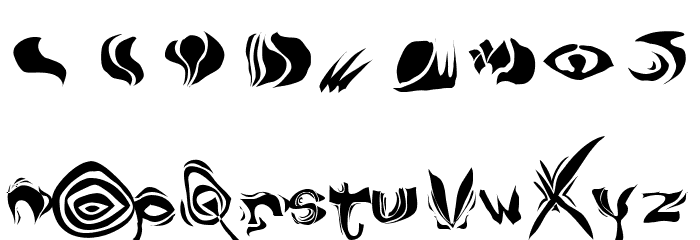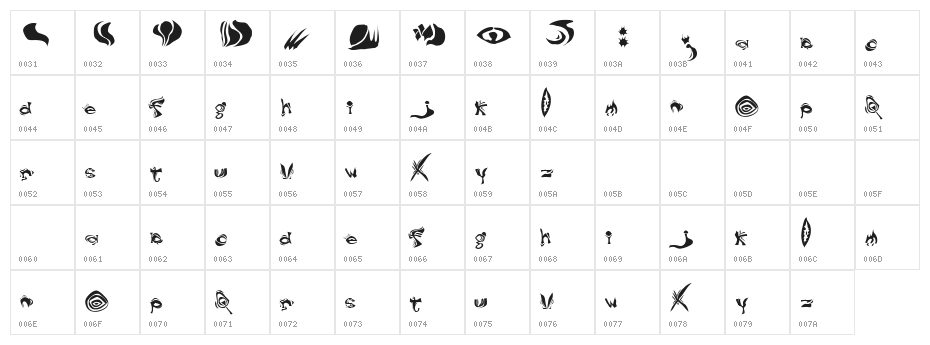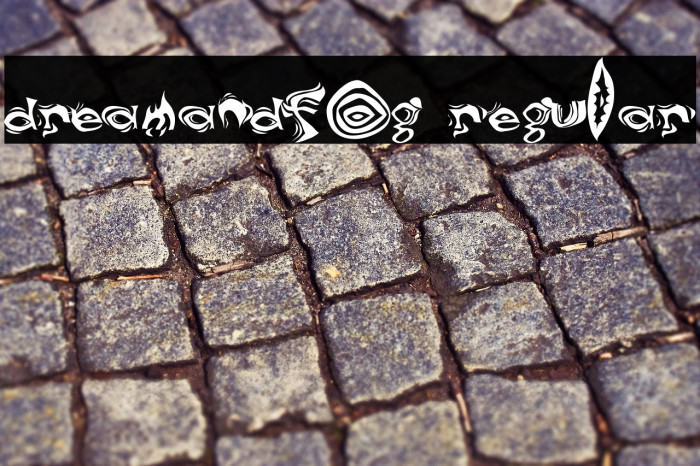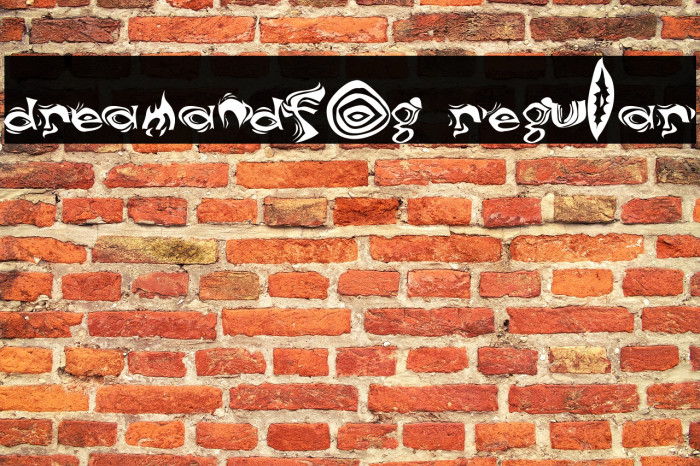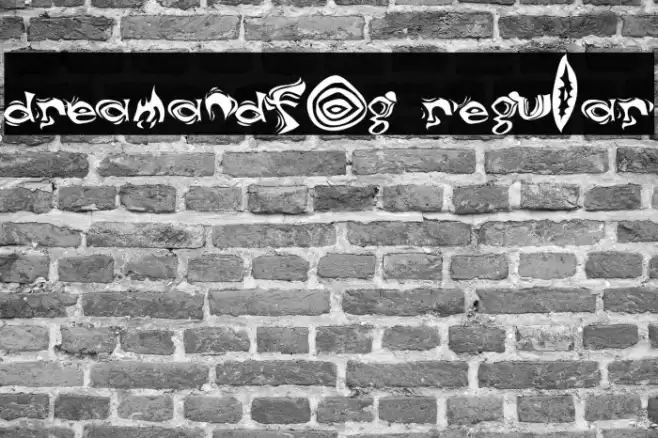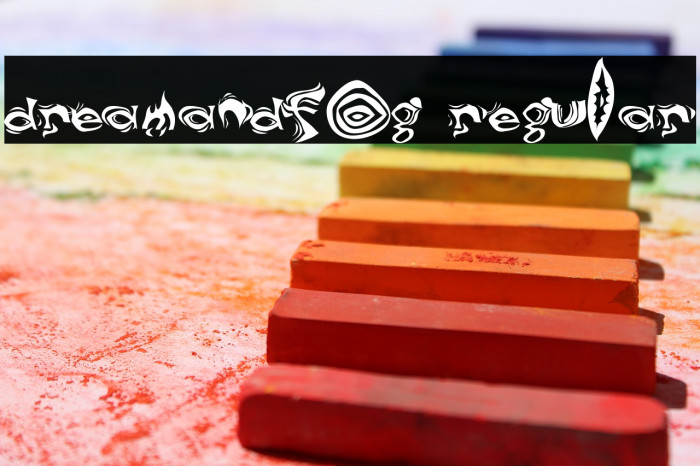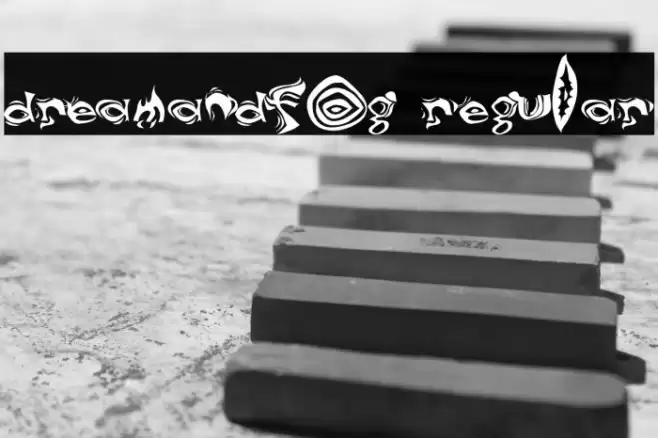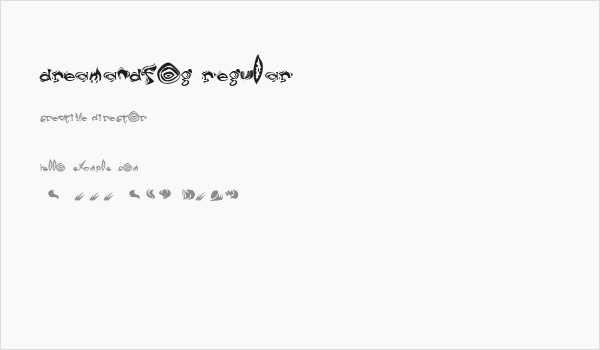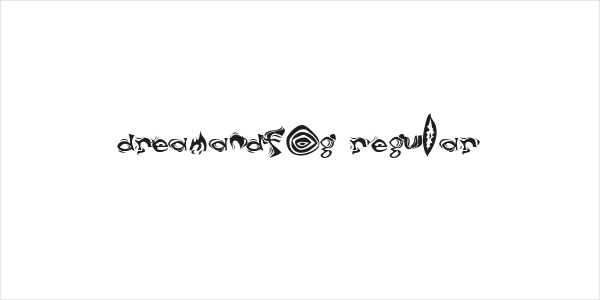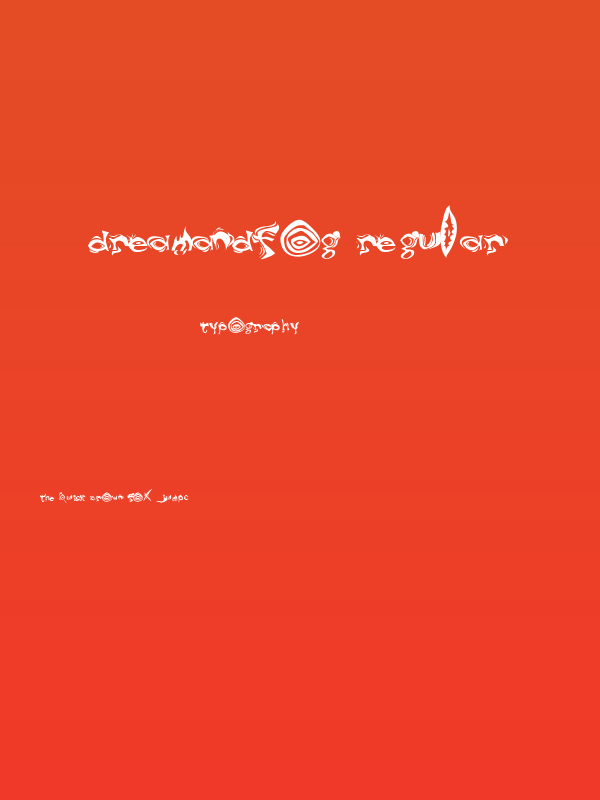
DreamAndFog Regular Font
DreamAndFog Regular Description
This font presents a highly decorative and abstract style, characterized by its intricate and swirling patterns that resemble natural elements like fog or smoke. Each character is uniquely crafted with a sense of movement and fluidity, making it stand out as an artistic piece. The uppercase and lowercase letters share a consistent theme of bold, dynamic shapes, while the numbers and special characters maintain this aesthetic, adding to the overall cohesion. The font's design is visually striking, with a high contrast between thick and thin strokes, creating a dramatic effect that captures attention.
| Use Case | Logos, Posters, Artistic projects |
| Proposed Projects | Ideal for artistic projects, fantasy-themed designs, book covers, posters, and branding that requires a unique and eye-catching typeface. |